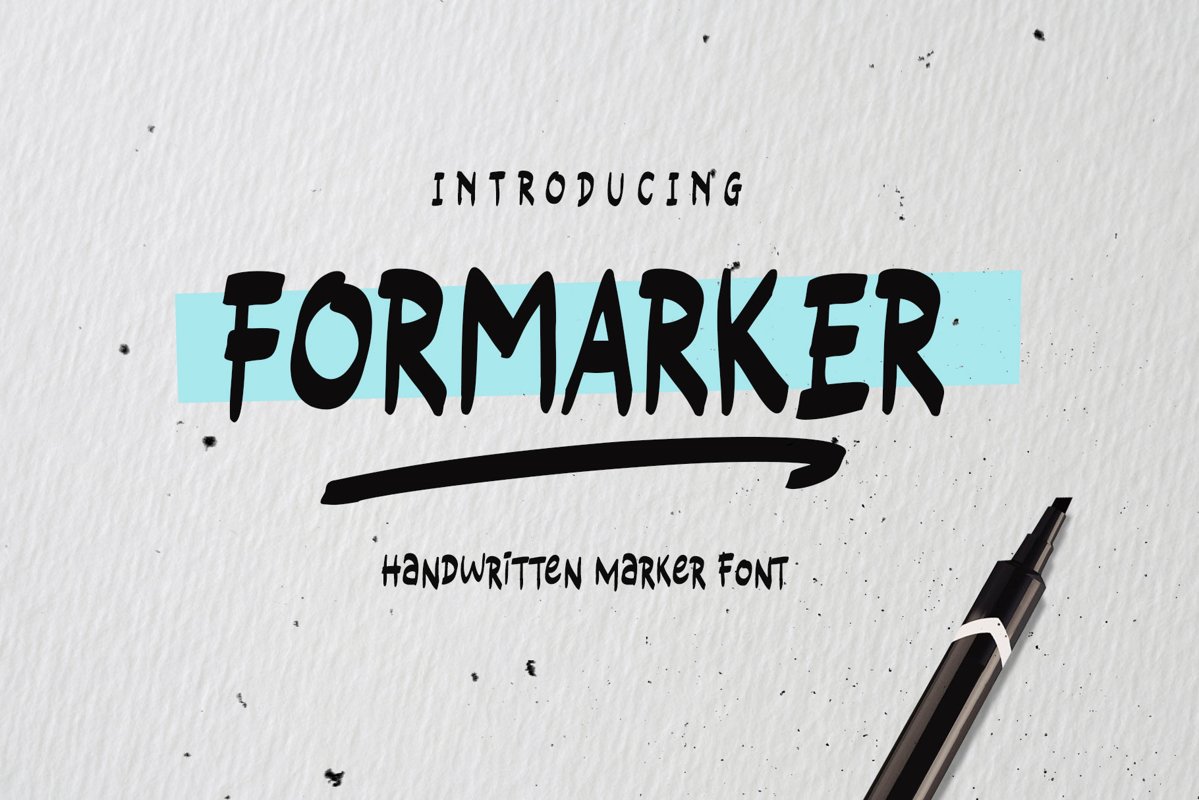
Formarker
Formarker is a hand-drawn font, inspired by price board from the general store and children's taste. Designed with 90° of wet marker tip and well vectorized with fewer nodes.
Formarker is an all-caps font. You can get the neat looks with the uppercase, and you can also get the playfully hand-drawn with the small-caps. Complete with swashes by simply type "number + underscore"Formarker is recommended for display, headline, T-shirt, quotes, labels, posters, children's books, and etc.
• Small caps
• Symbols & Punctuations
• Accented characters: Afrikaans, Albanian, Catalan, Croatian, Czech, Danish, Dutch, English, Estonian, Finnish, French, German, Hungarian, Italian, Lithuanian, Maltese, Norwegian, Polish, Portuguese, Slovak, Slovenian, Spanisch, Swedish, Turkish, Zulu,
• Swashes
• Stylistic alternates